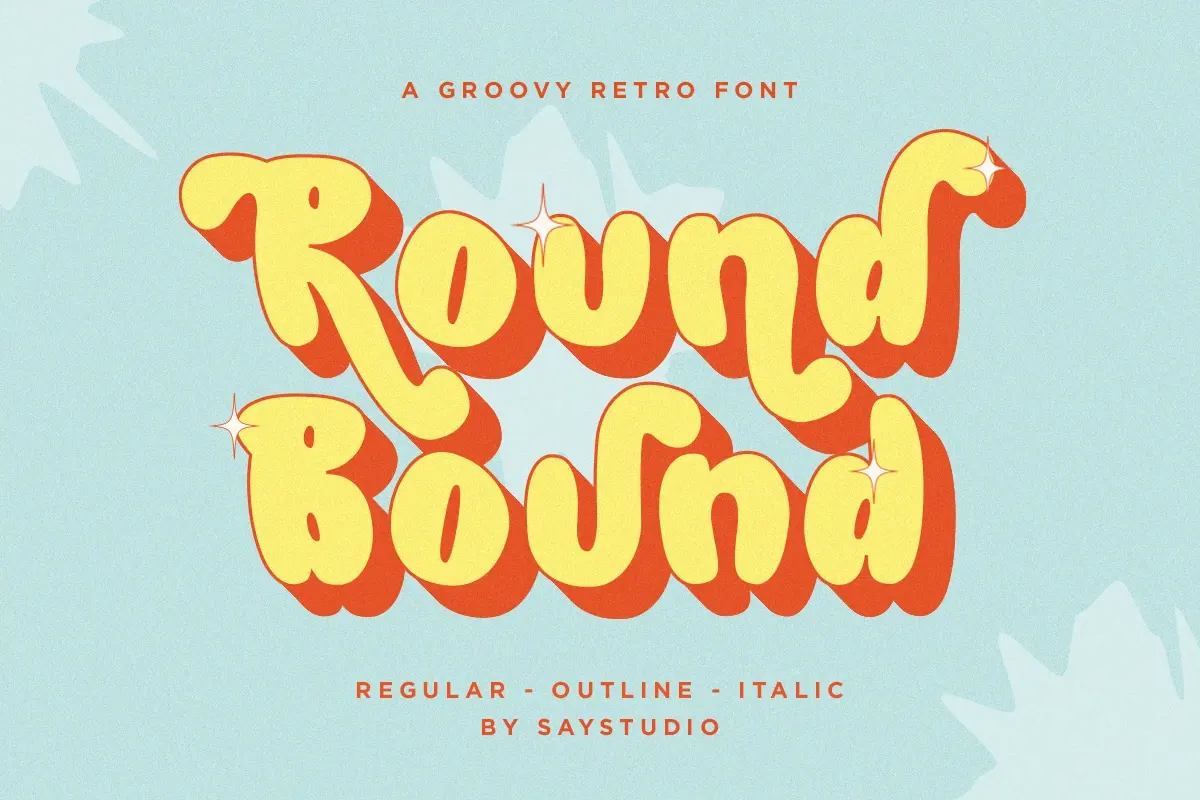
Round Bound - Groovy Retro Font Free Download
Round Bound – Groovy Retro Font Free Download is a funky and nostalgic typeface that brings 70s-inspired flair and positive vibes to any design. Please note, you are required to purchase this font for commercial use. It is available for free download for testing and personal projects only.
With its bubbly curves, playful rhythm, and vintage charm, Round Bound is perfect for posters, album covers, branding, t-shirts, social media graphics, and more. It captures that groovy, free-spirited aesthetic that makes designs pop with personality and warmth.